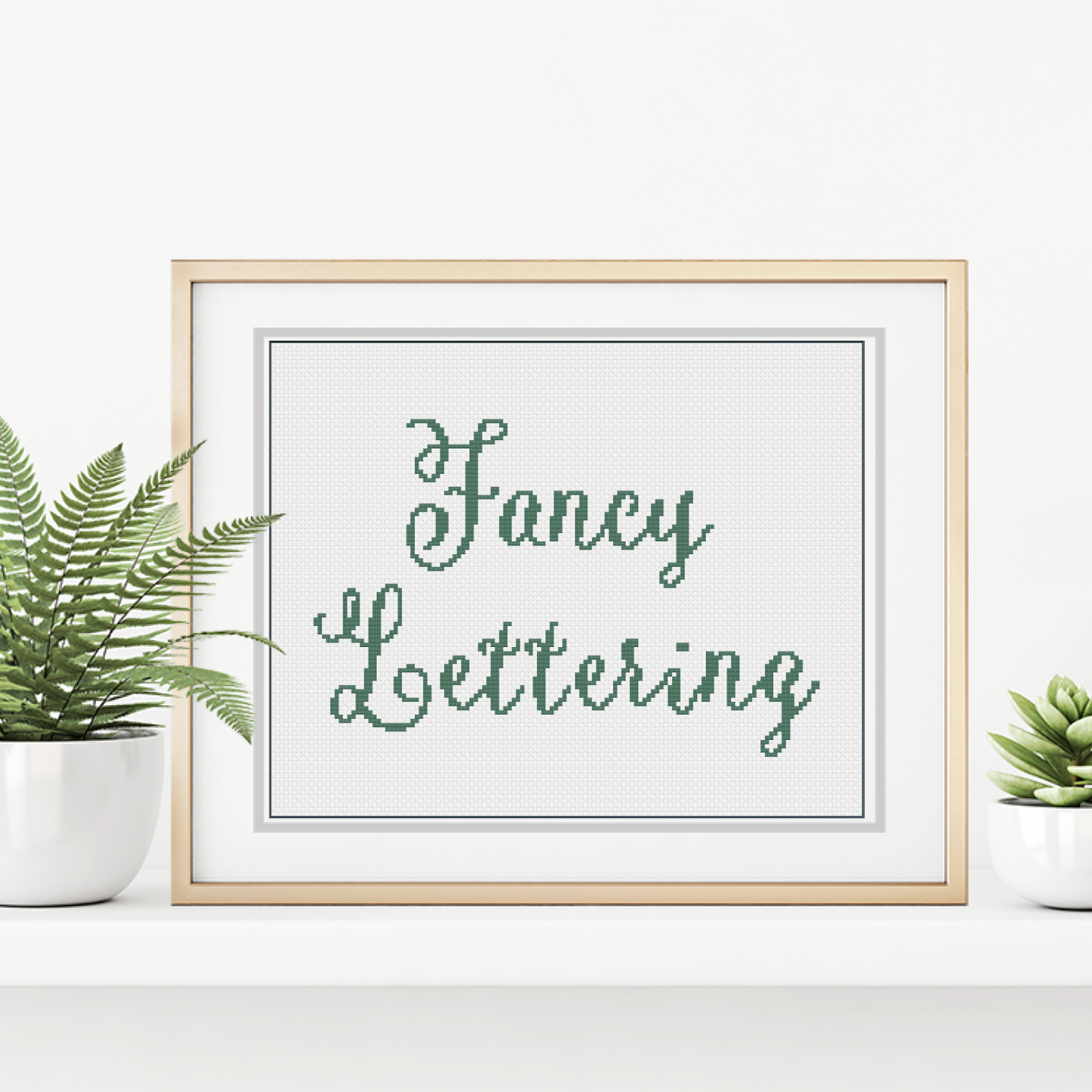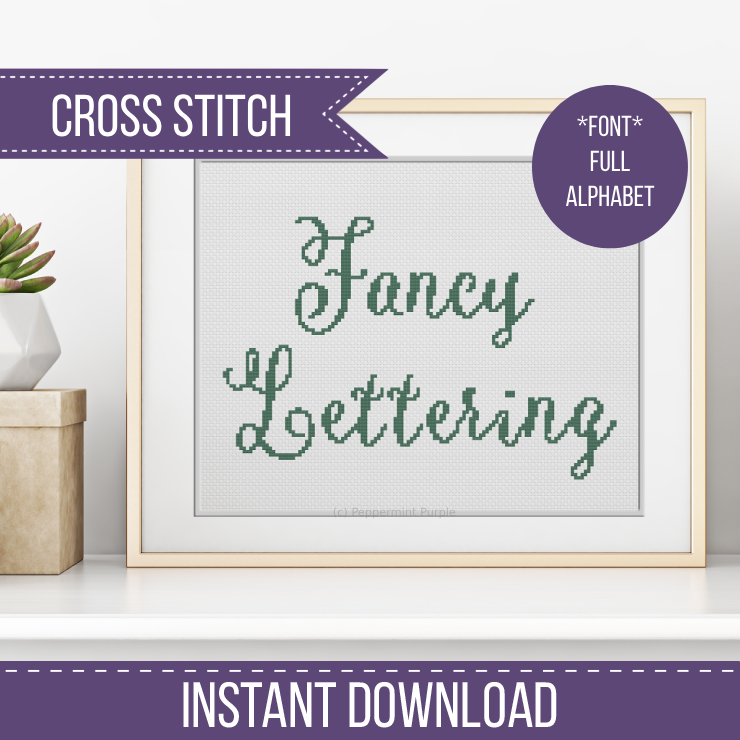
Cross Stitch Font
This Chart contains full Upper and Lower case alphabets and instructions on how to use the chart so that the letters are joined as shown in the pictures.
Tallest letter is 31 stitches high
Types of stitches: Full Cross Stitches
This design does not contain any fractional stitches
This design is : x 31 Stitches On 14ct Material this will be : 0.0 x 2.22 Inches / 0.0 x 5.63 cm On 16ct Material this will be : 0.0 x 1.94 Inches / 0.0 x 4.93 cm On 18ct Material this will be : 0.0 x 1.73 Inches / 0.0 x 4.38 cm On 20ct Material this will be : 0.0 x 1.55 Inches / 0.0 x 3.94 cm